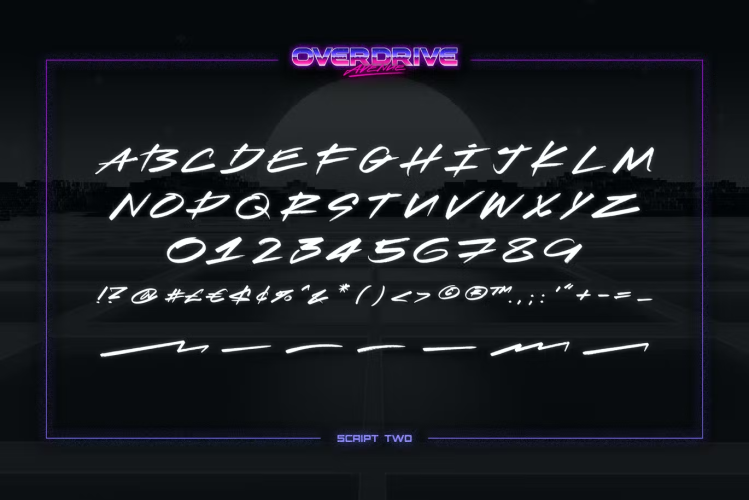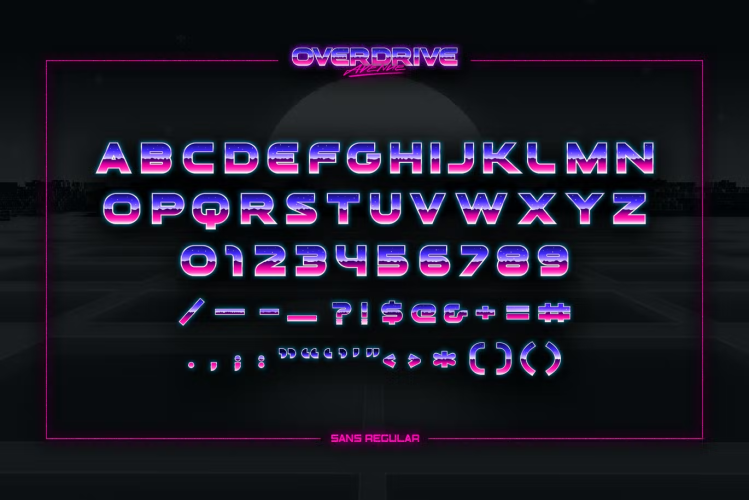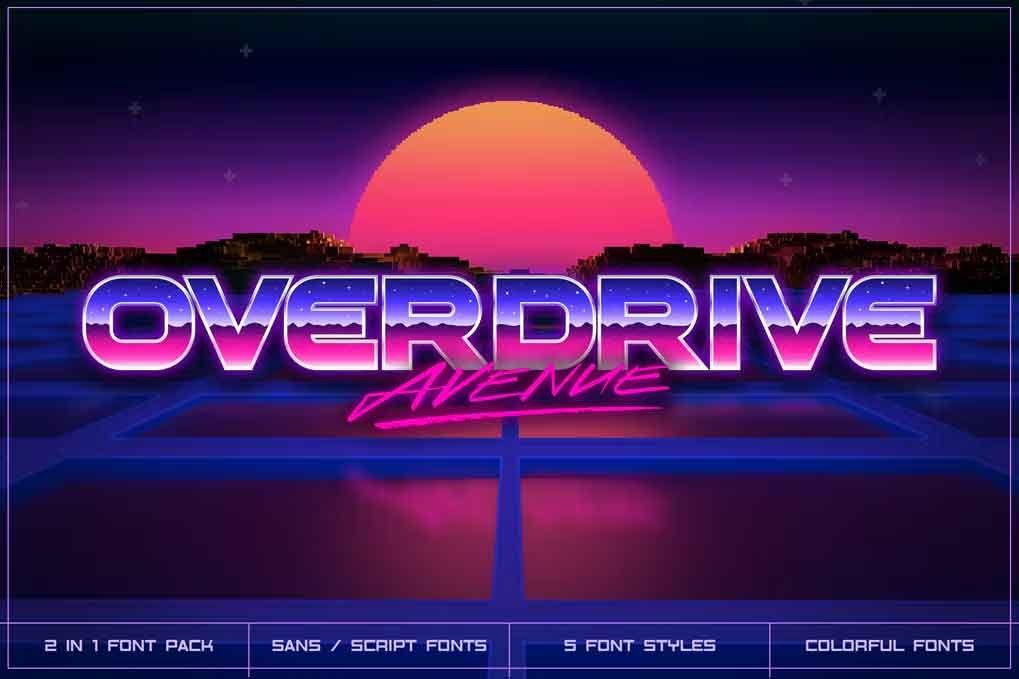
Overdrive Avenue Retro Wave Font
What a wonderful time it was! Sweet 80’s and early 90’s the time when you had VHS tapes with your favourite movies on your shelf. CDs and Laser Discs were on top of technology progress! Our nostalgic font 2 in 1 called Overdrive Avenue (Sans + Script with 5 different styles in total) will help you create the atmosphere of those very 80s that we imagine in our heads with a warm memories. Retro wave as is. Color OpenType Font in .OTF format (Adobe Illustrator / Photoshop 2018+).
Where Overdrive Avenue Retro Wave Font works best
What is Overdrive Avenue Retro Wave Font good for?